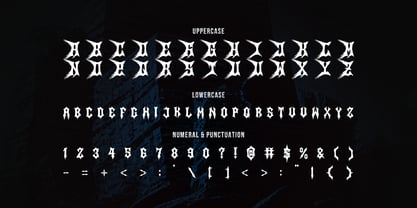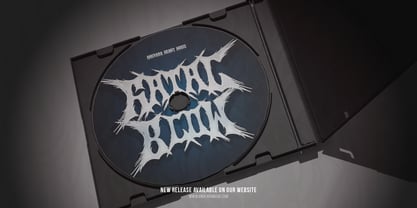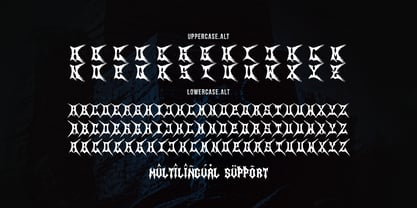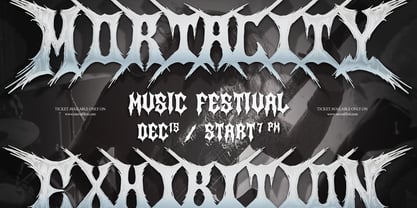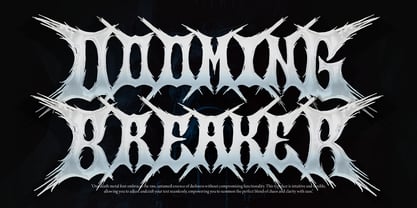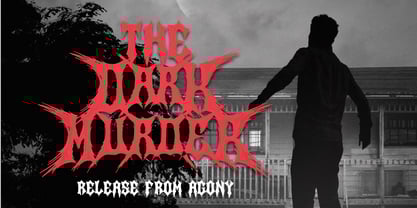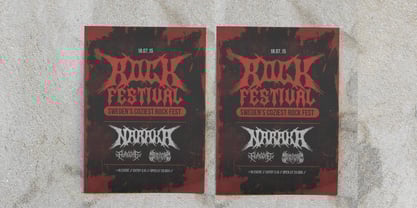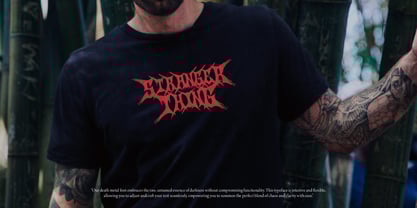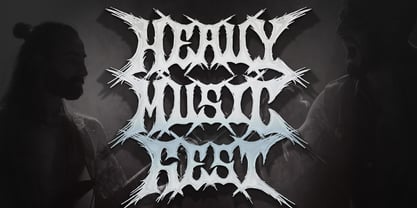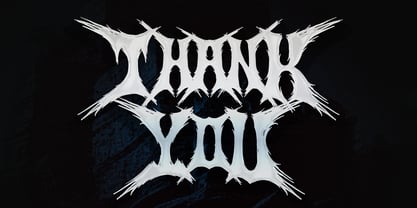
Searing Maw
by Denustudio
The Searing Maw Font Family was designed by Dede Nugraha and published by Denustudio. Searing Maw contains 1 styles.
Searing Maw | Death Metal Font, from Denustudios, suitable for any projects such as: logos, branding projects, homeware designs, product packaging, mugs, quotes, posters, shopping bags, t-shirts, book covers, name card, invitation cards, greeting cards, label, photography, watermark, special events, and all your other lovely projects that need a Death Metal Font taste.
• Alternate and Ligature